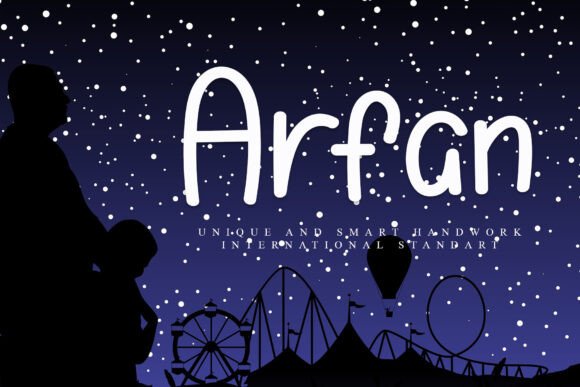
The Quest for the Perfect Font: Discovering Arfan
Ah, the eternal struggle of finding the perfect font for our design projects! I still remember the time I was working on a wedding invitation card for a client, and I just couldn’t seem to find a font that exuded elegance and sophistication. The client had a clear vision of what they wanted, but I was stuck with a sea of bland, generic fonts that just didn’t cut it. That’s when I stumbled upon Arfan Font, and let me tell you, it was love at first sight! 💕
Arfan Font: A Personal Review
Arfan Font is a unique and elegant font that’s specially designed to elevate your projects. Here’s what I love about it:
- ✨ Professional hand touch: Arfan Font has a distinct, hand-crafted feel that sets it apart from more generic fonts.
- ✅ Versatility: This font is perfect for a wide range of projects, from wedding invitation cards and birthday parties to school assignments and important events.
- 💯 Glyphs and OpenType features: Arfan Font comes with a range of glyphs and OpenType features that allow for endless creativity and customization.
Of course, no font is perfect, and Arfan Font has a few minor quirks:
- 🤔 Limited multilingual support: While Arfan Font is excellent for English and some European languages, it may not be the best choice for projects requiring extensive multilingual support.
- ⚠️ Occasional kerning issues: As with any font, there may be some kerning issues, especially when using certain character combinations.
The Story Behind Arfan Font
Arfan Font was designed with love and care by a talented team of typographers. The story goes that the designers wanted to create a font that would bring a touch of elegance and sophistication to any project. Inspired by classic calligraphy and modern typography, Arfan Font was born.
| Is Arfan Font suitable for body text? | While Arfan Font is elegant and easy to read, it’s best suited for headings and titles. For body text, consider a more traditional serif or sans-serif font. |